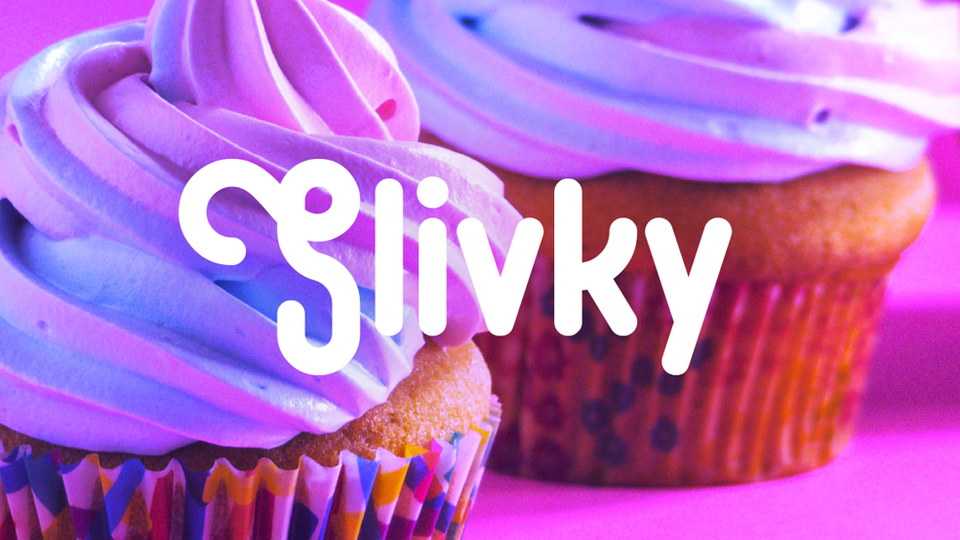
Download Slivky font, a cute condensed rounded typeface. Slivky is good for logos, packaging, posters, advertisements and more.
Designer: Slava Antipov